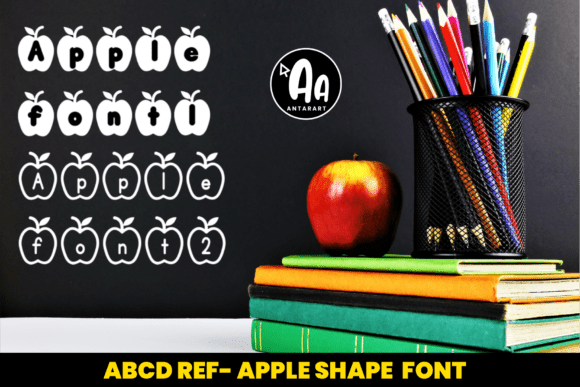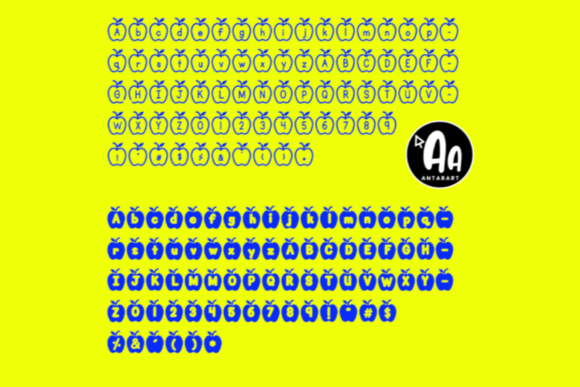
Discover the Adorable Abcd Ref Apple Shape1 Font for Your Classroom Decor
A Personal Review of Abcd Ref Apple Shape1 Font
What I Love About This Font
- ✨ Unique Apple Shape Design: Each letter and number is designed inside an apple shape, making it perfect for fall themes, apple unit studies, and back-to-school season.
- ✨ Versatile: You can use it for printable projects, digital resources, labels, or teaching materials.
- ✅ Eye-catching: The apple shape design adds a cheerful touch to any classroom decoration.
While I love this font, there are a few things to keep in mind:
- ⚠️ Limited Character Set: The font may not have an extensive character set, which could limit its use for certain projects.
- 🤔 Not Suitable for All Themes: The apple shape design may not fit with every classroom theme, so use it judiciously.
The Designer Inspiration Behind Abcd Ref Apple Shape1 Font
The Abcd Ref Apple Shape1 Font was designed with the intention of creating a fun and playful font for classroom decorations. The designer wanted to create a font that would add a cheerful touch to bulletin boards, posters, and other classroom materials. With its unique apple shape design, this font is sure to delight students and teachers alike.
| Font Name | Abcd Ref Apple Shape1 Font |
| Q: What is the Abcd Ref Apple Shape1 Font? | A: The Abcd Ref Apple Shape1 Font is a decorative font designed with apple shapes, perfect for classroom decorations and fall themes. |